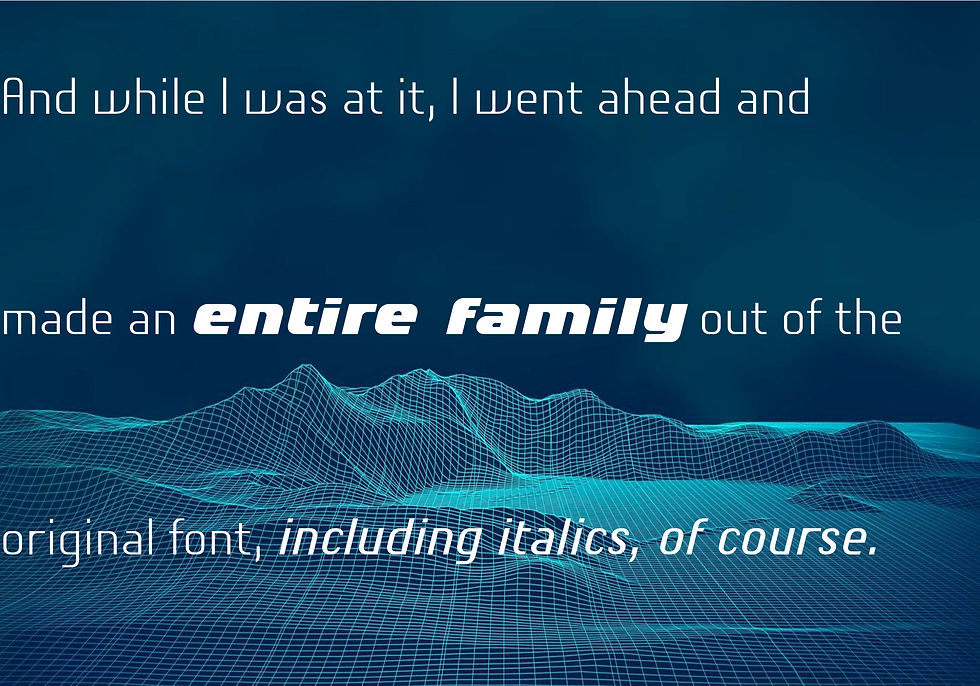
Two fonts — one family
The name suggests it: the Chiq is inspired by a well-known system font from Apple’s classic Mac OS operating system.
By revamping and expanding good old “Chicago”, I want to make that 90s tech charm available for the future. The model consisted of just a single style and inspired me to create “Chiq Bold,” which later became the starting point for the entire font family.
Simple, simple
The idea of creating a typeface whose vectors were constructed as simply as possible also played a role. The appearance of digital type is described using mathematical vectors that are defined by a series of corner and curve points — the anchor points. And some technical applications still require a font that is as simply defined as possible and has as few anchor points as possible.
The shapes of the Chiq are constructed according to a very simple principle. The contrast of stems and hairlines becomes more pronounced towards the bolder weights. A few basic shapes form the framework for all characters. The shapes are very regular and sometimes form somewhat unusual figures, which has a negative effect on readability and makes the font rather unsuitable for long passages of text, but results in a very even typeface. This is particularly true for the extra-wide “UltraExpanded,” which is so wide that you can no longer recognize word images but literally have to spell them out. In this way, words are turned into letter bands with a great decorative effect.
A complete family
With variants from “Light” to “Black”, from “Normal” to “Ultra Expanded” and the italics, Chiq reaches beyond its archetype. This opens up a wide range of uses. It is even clearer, even more sober, and to a certain extent speaks an even more modern formal language.
Chiq is also a variable font!
This means that there are not only the usual individual styles — one font file for each variant, but when using the variable font you have all the variations available in a single font file. And any intermediate level can also be created and displayed with it — assuming the software supports this still young font format.
The Shad is the almost illegible cousin of the Chiq. As the name suggests — it consists of the shadows of the letters.
And the bolder the font style, the deeper it is. The “Light” only has a thin shadow, while the “Black” casts a very deep, broad shadow.
Unlike Chiq, Shad is only available as “static” fonts (individual font files for each variant). Due to the different geometry of the shadows of different depths, a variable font is unfortunately not technically feasible.
Shad only consists of the letter shadows, the corresponding letter remains transparent, i.e. without filling. The metrics (spacing and character widths) correspond to those of Chiq, so that both fonts can be placed congruently on top of each other.
When you combine and play with the two fonts, very attractive effects quickly emerge. Shad brings a bit of 3D into typography.